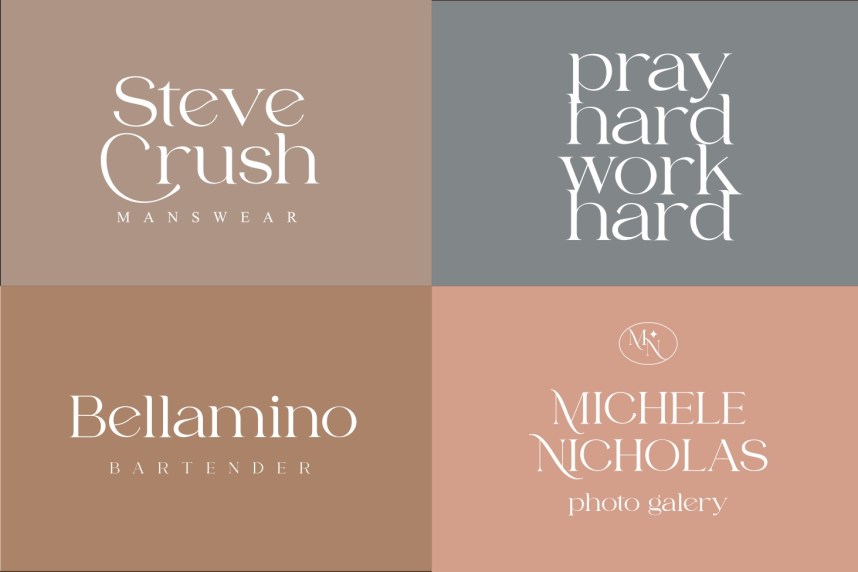
Fragile Serif Font
This modern typeface is a serif font that is designed with many ligatures and alternative fonts that support so that users can use many variations. This font is perfect for Bandin, logo design, wedding, quotes, magazing anything do you want. You will get classy, elegant, and certainly unique logos with this font.